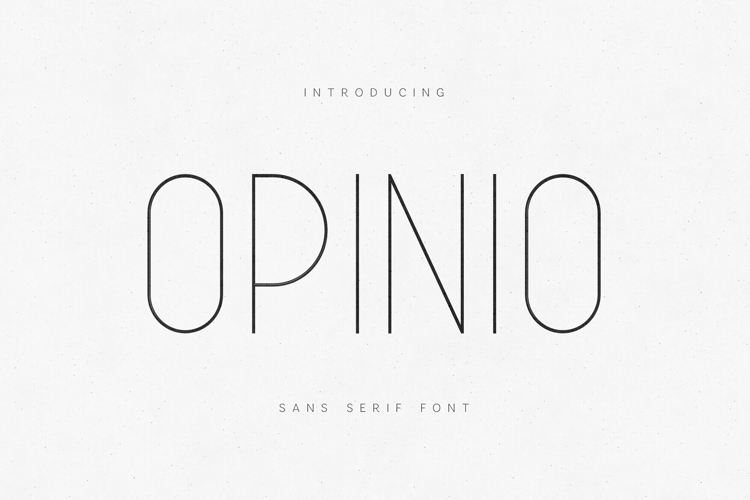
Opinio Sans Serif Font Modern Minimal Clean Typography
Opinio is a modern sans serif font designed with a clean, minimal, and elegant aesthetic. Featuring thin lines and a refined geometric structure, this font is perfect for contemporary branding, logo design, editorial layouts, UI design, and high-end typography projects.
Its lightweight and airy appearance makes Opinio ideal for creating sophisticated and modern visual identities while maintaining excellent readability and versatility across both print and digital media.
Whether you’re working on branding, websites, or social content, Opinio delivers a timeless and professional look.
• Clean geometric structure
• Minimal and modern style